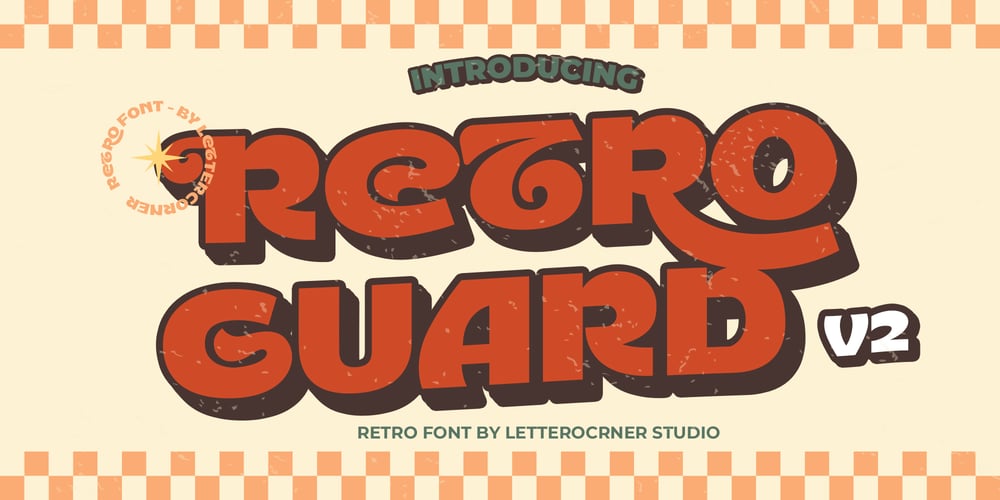
Retroguard V2 Font Family was designed by Muhammad Afif Ersya and published by Mevstory Studio. Retroguard V2 contains 2 styles and family package options. New Update of Retroguard is a typeface that was inspired by classic movies and frequently makes people nostalgic for the height of cinema. This typeface is distinguished by its strong, dramatic letterforms, which frequently evoke the early 20th-century Art Deco and Art Nouveau movements. Images that enhance boldness and drama, including black-and-white photos, antique movie posters, or pictures of film reels, are frequently used in conjunction with this font.